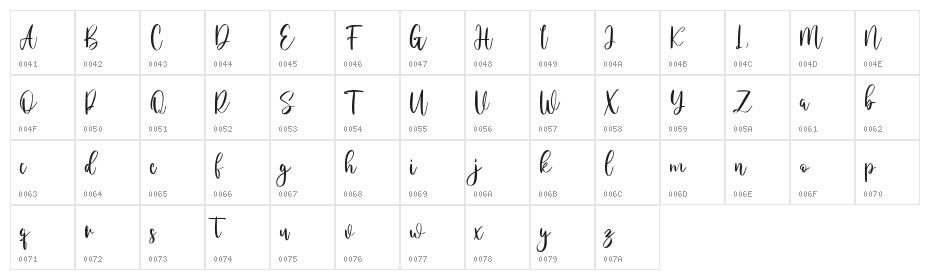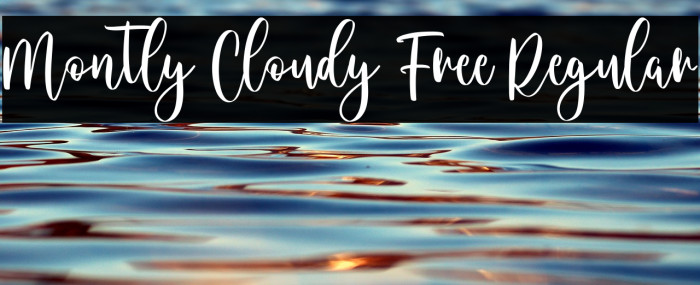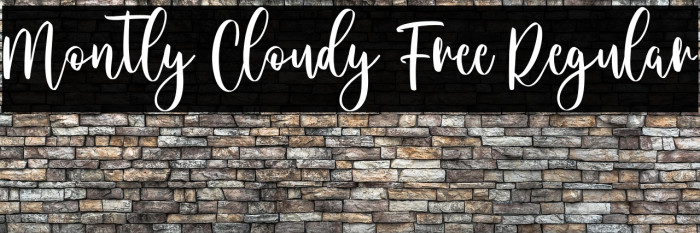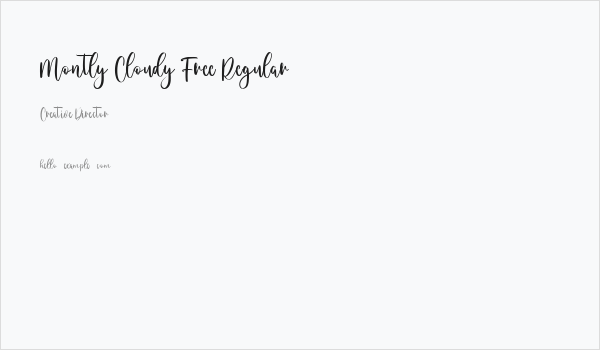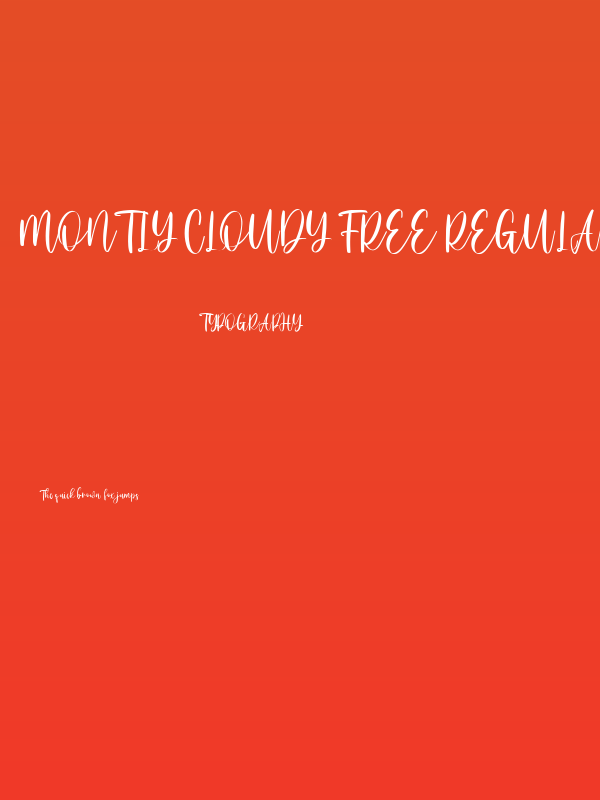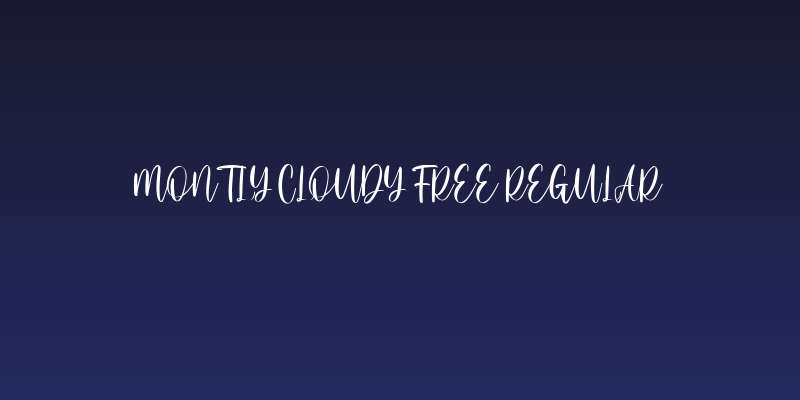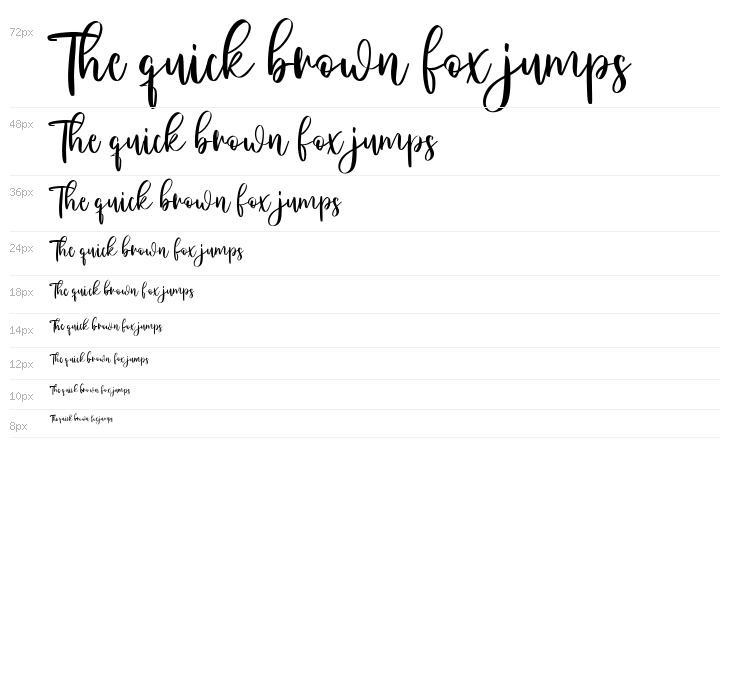
Montly Cloudy Free Regular Font
Montly Cloudy Free Regular Description
This font features a flowing, cursive style with elegant loops and swashes, giving it a handwritten appearance. The letters are connected in a smooth, continuous manner, creating a sense of fluidity and movement. The uppercase letters are bold and prominent, while the lowercase letters maintain a consistent style with slightly less emphasis. The overall look is both sophisticated and playful, making it suitable for creative and artistic projects. The font's design is well-suited for capturing attention while maintaining readability, with a unique charm that adds personality to any text.